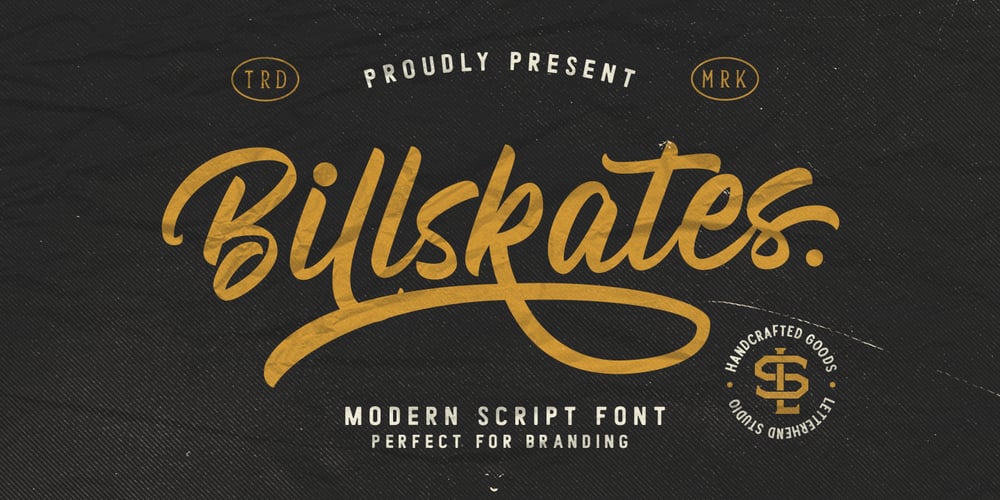
Billskates Font Family was designed by Hendry Juanda and published by Letterhend. Billskates contains 1 styles and family package options. Billskates is a modern script font. This font is perfect for logos and the other various formal forms such as invitations, labels, logos, magazines, books, greeting / wedding cards, packaging, fashion, make up, stationery, novels, labels or any type of advertising purpose.Features: Uppercase & Lowercase Numbers and Punctuation Multilingual support Ligatures Alternates Swashes PUA encoded Contextual alternates We highly recommend using a program that supports OpenType features and Glyphs panels like many of Adobe apps and Corel Draw, so you can see and access all Glyph variations.Email us to letterhend@gmail.com if you need something! Happy Designing!